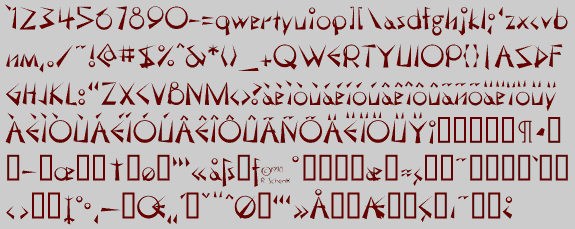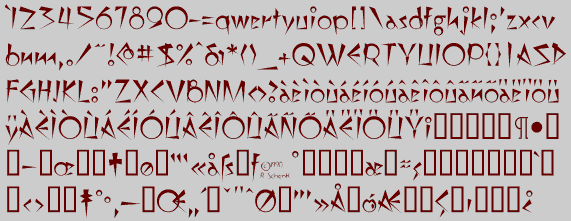
Demotte is a display face made up of triangular blocks (and some circles). It comes in two styles. In one style the triangular blocks point up so that the letters are heavy at the base, and in the other the blocks point down so that the letters are heavier at the top.